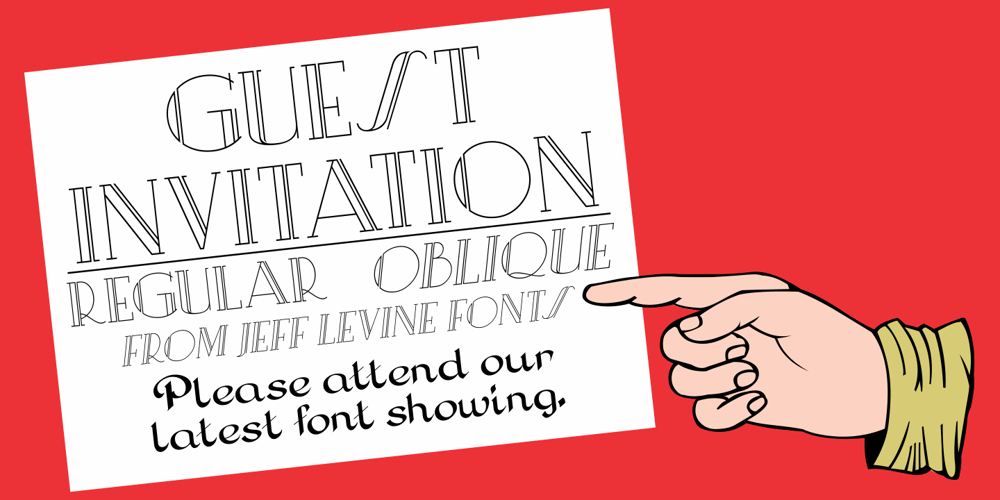
Guest Invitation JNL Font Family was designed by Jeff Levine and published by Jeff Levine. Guest Invitation JNL contains 2 styles and family package options. Samuel Welo was a sign painter who had published in the 1920s and again in 1960 editions of his “Studio Handbook – Letter and Design for Artists and Advertisers”.In-between, in 1930 Welo also published “Lettering – Practical and Foreign”. Within the pages is an Art Deco outline slab serif design using multiple thin lines to create an “incised” or “engraved” look within the characters.This intriguing type style is now available as Guest Invitation JNL, in both regular and oblique versions.